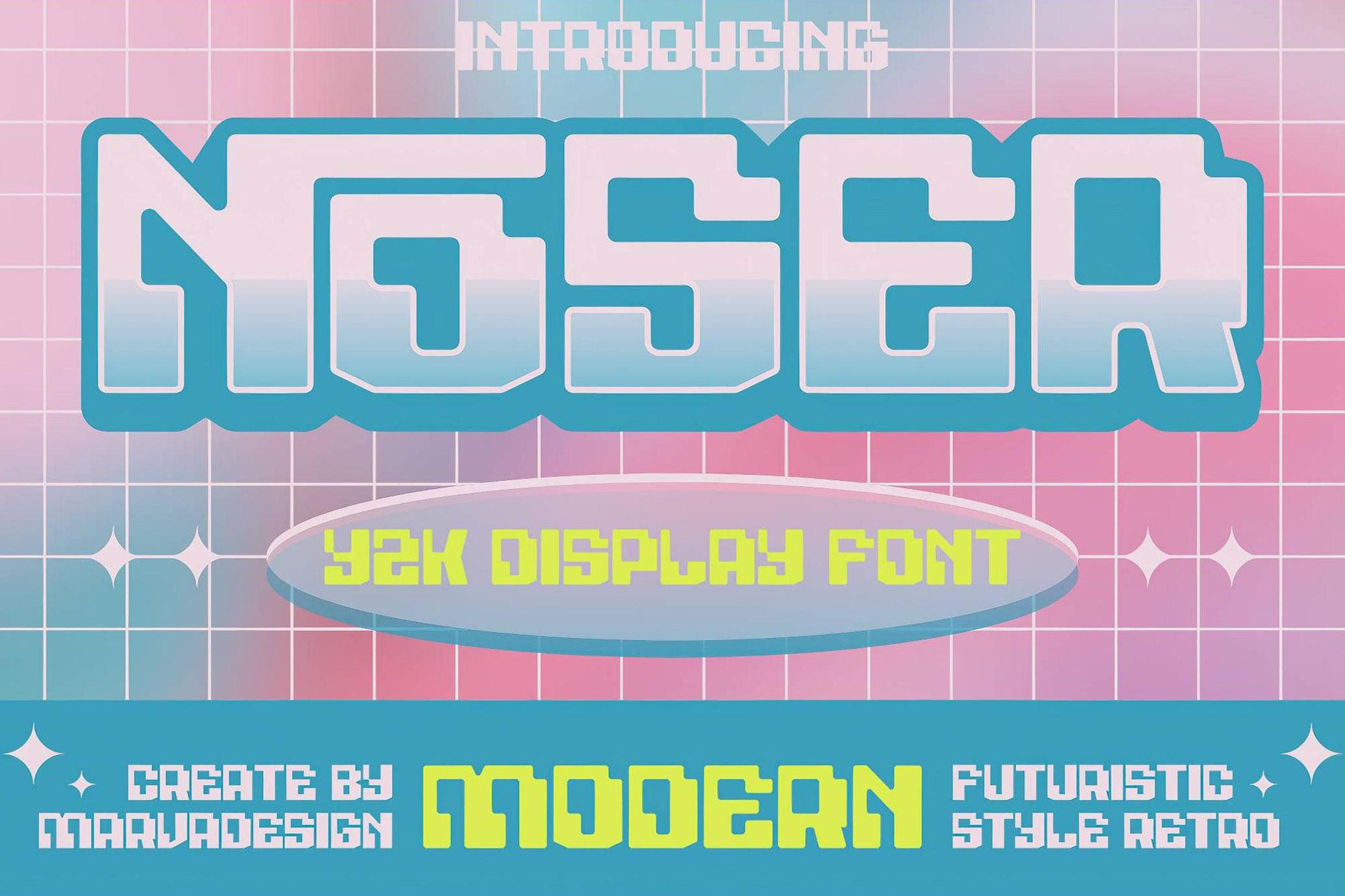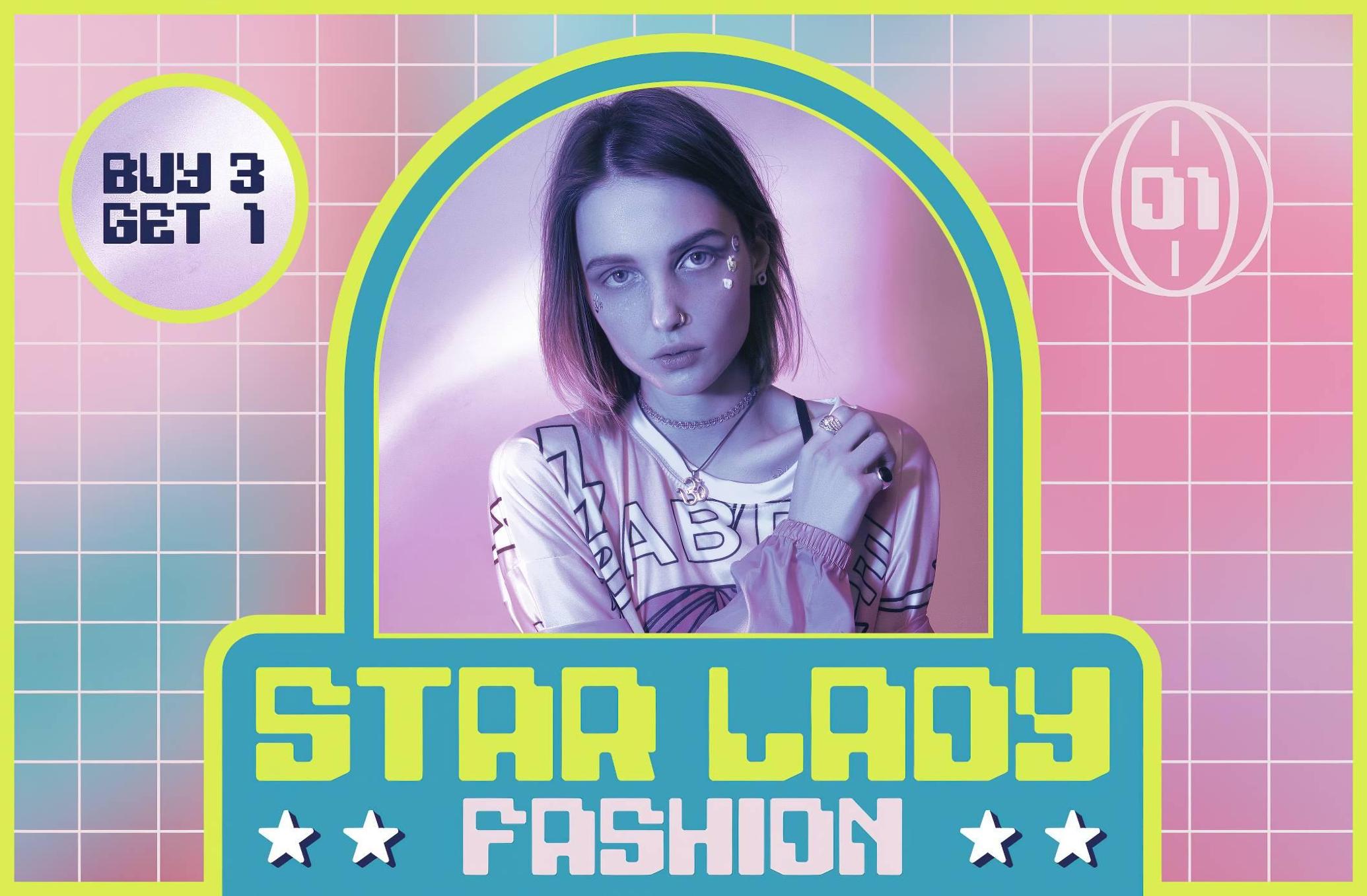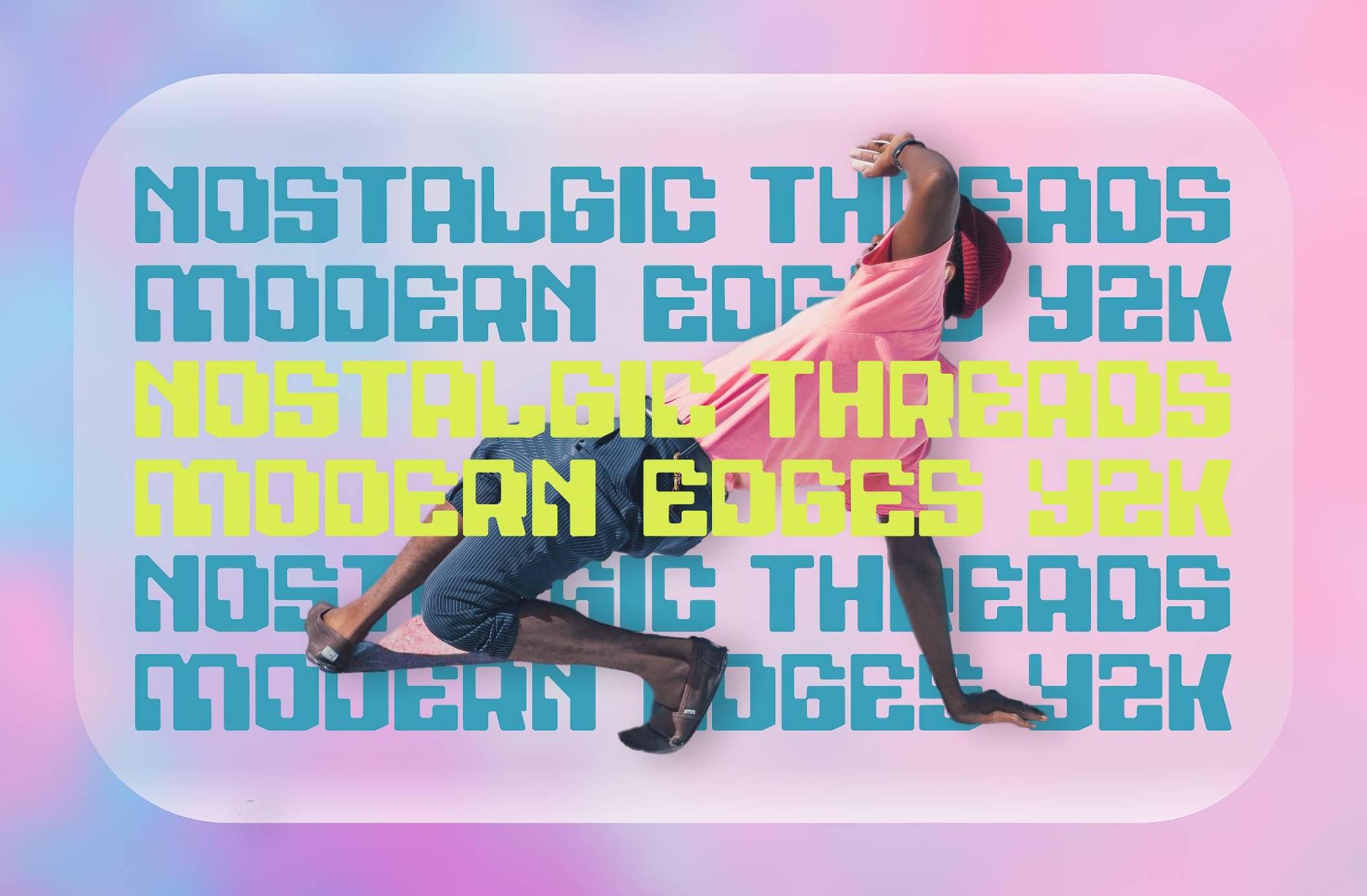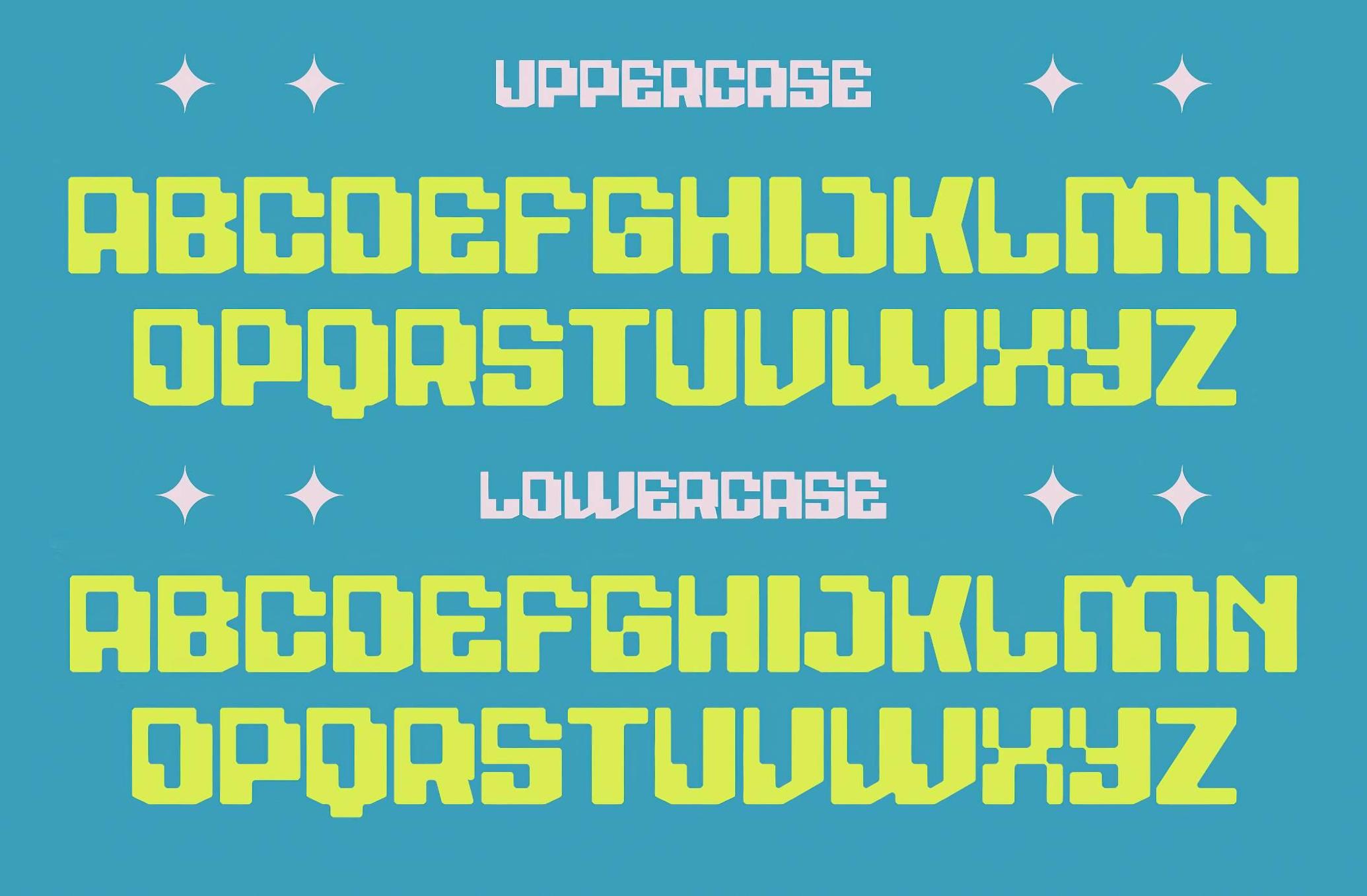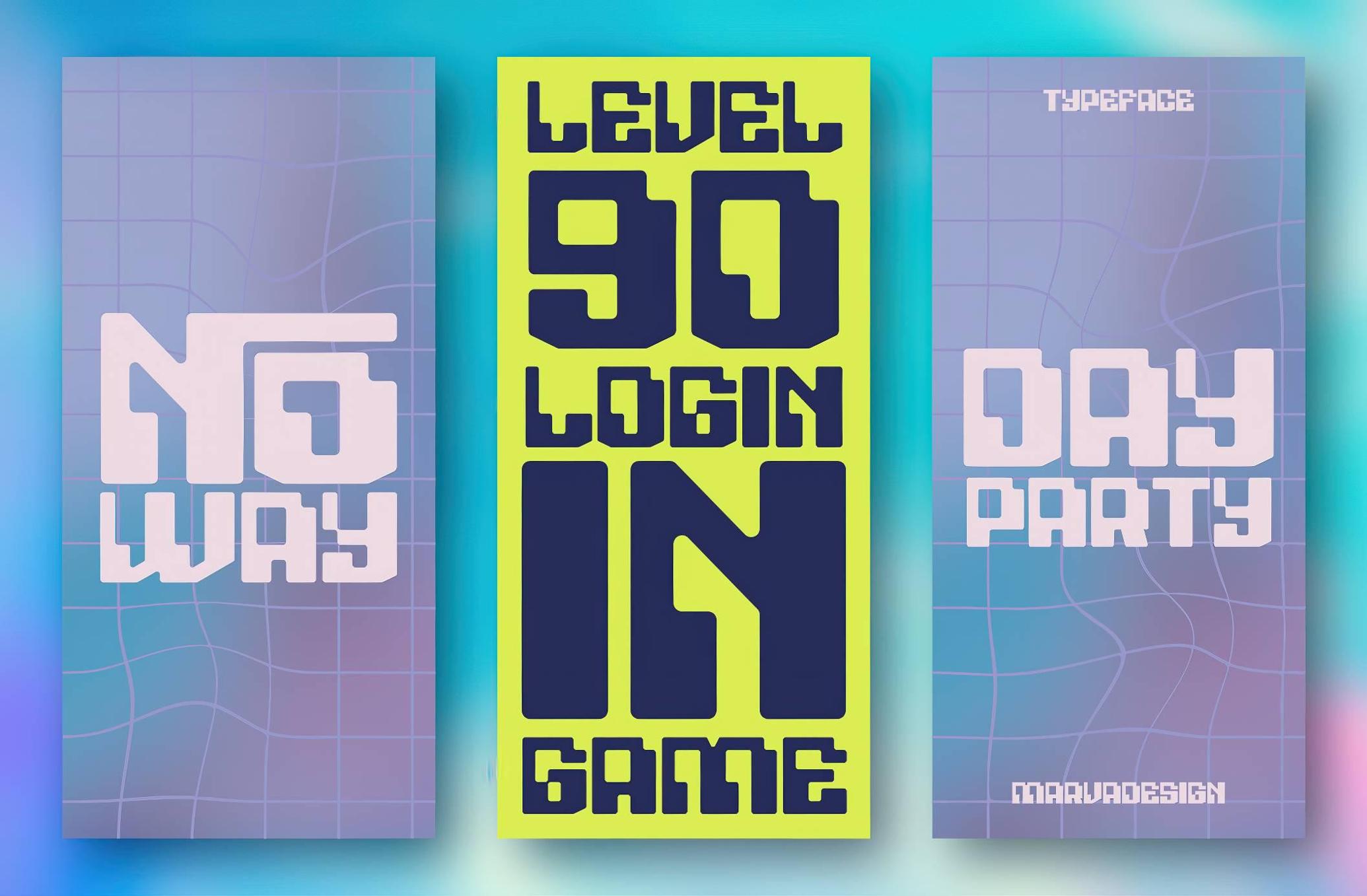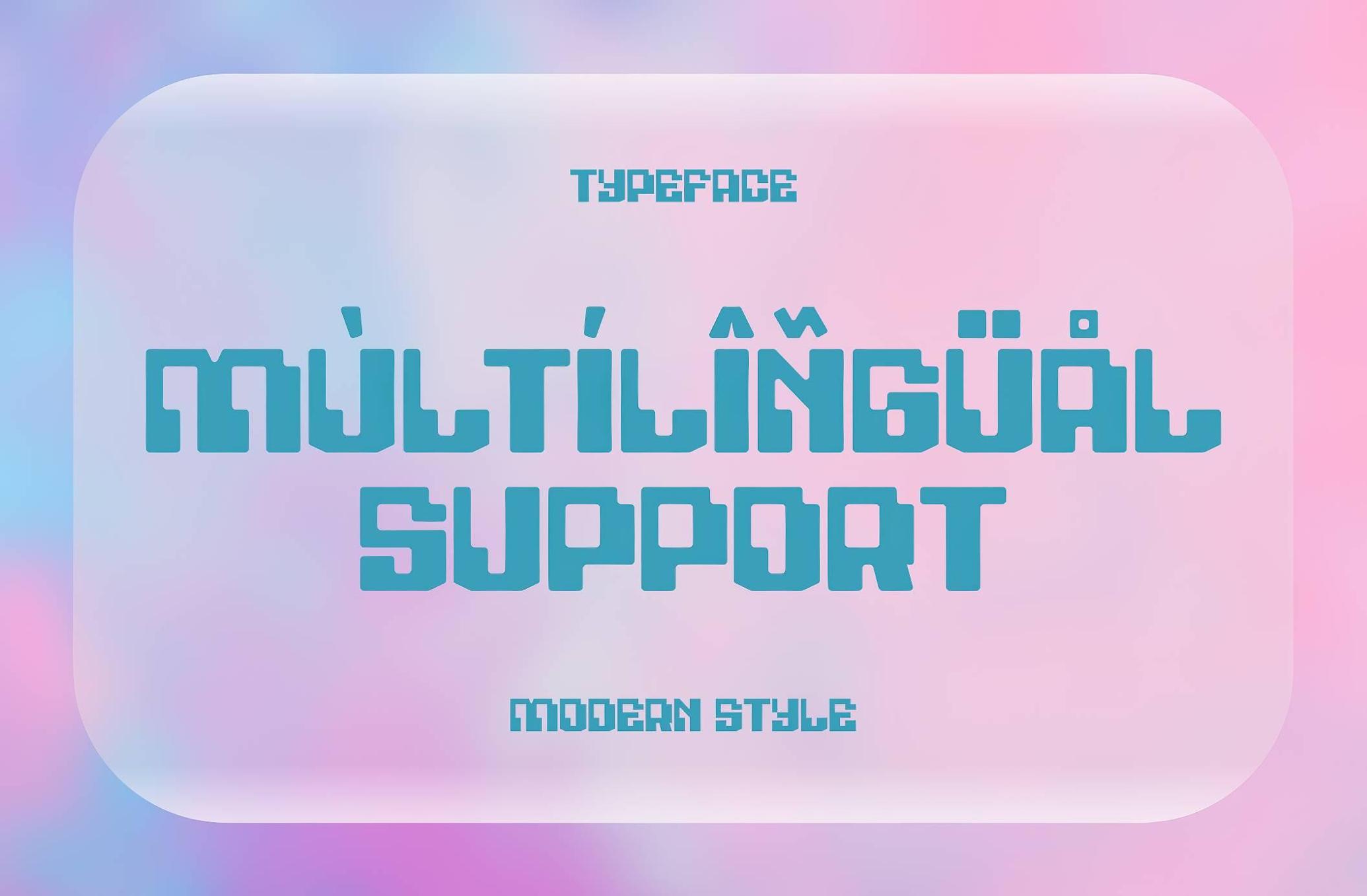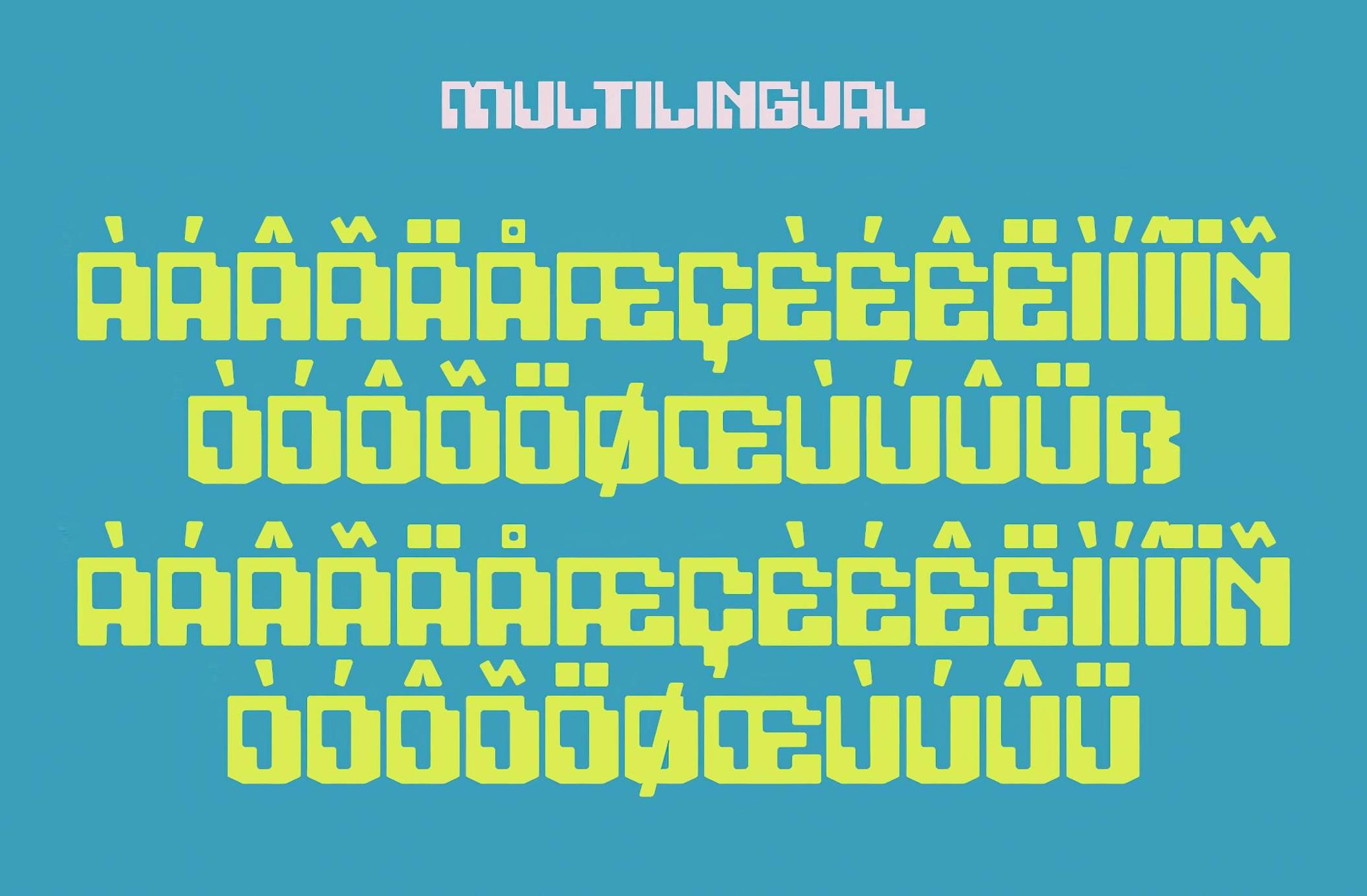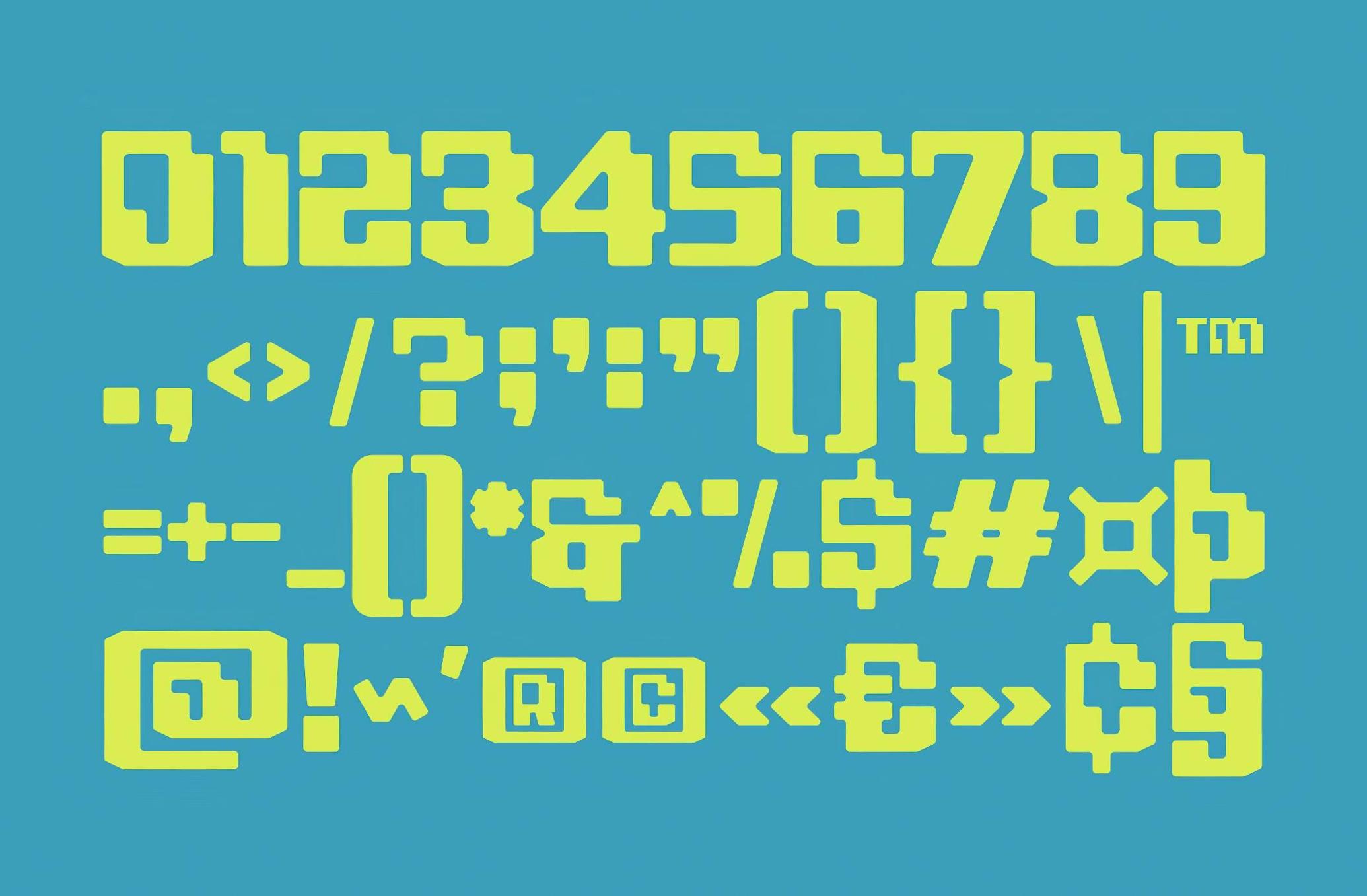
Noser — Y2K Display Font
Noser
Channeling the sugary glitch of early web graphics and retro-futuristic flair, Noser is a Y2K display font that feels like a pixelated pop song in typographic form. With bold, bubble-wrapped strokes and playful curves, it’s designed to stand out in digital playgrounds and nostalgic dreamscapes alike. This typeface comes fully loaded with uppercase, lowercase, numbers, and punctuation — ready to bring a hit of millennium-core energy to logos, packaging, posters, and branding projects.